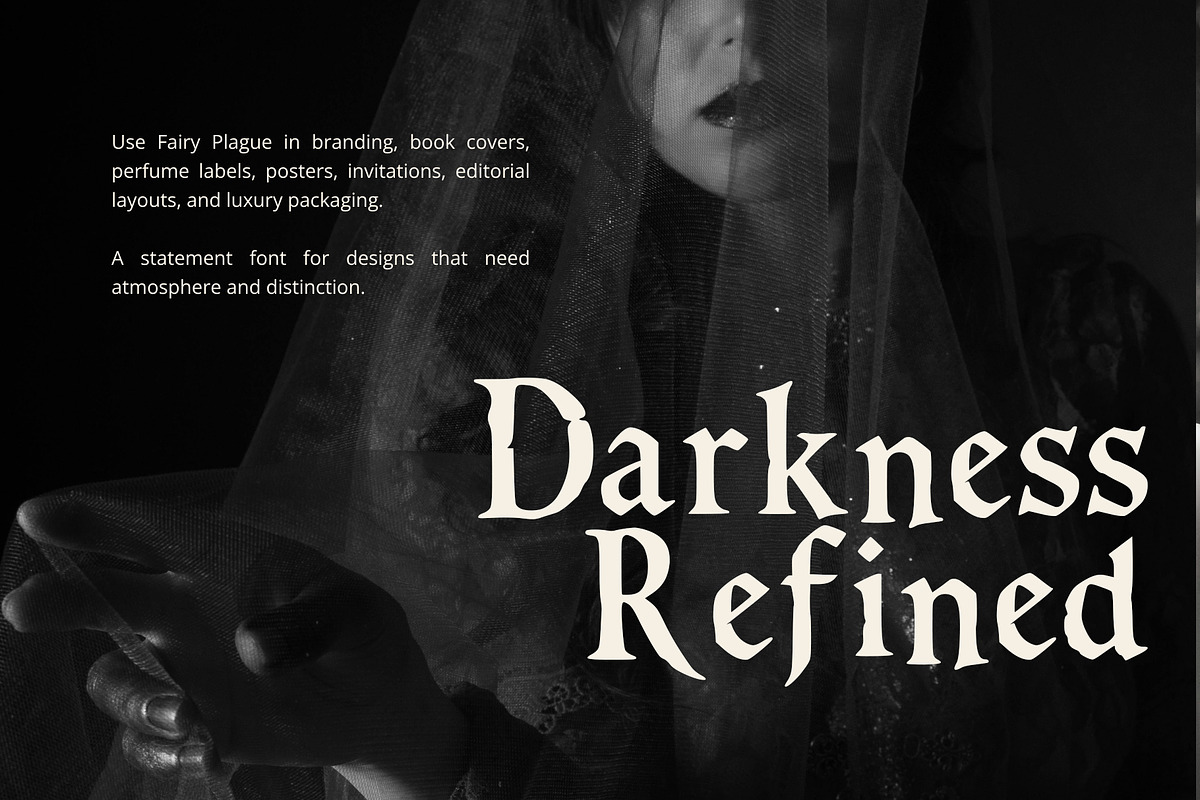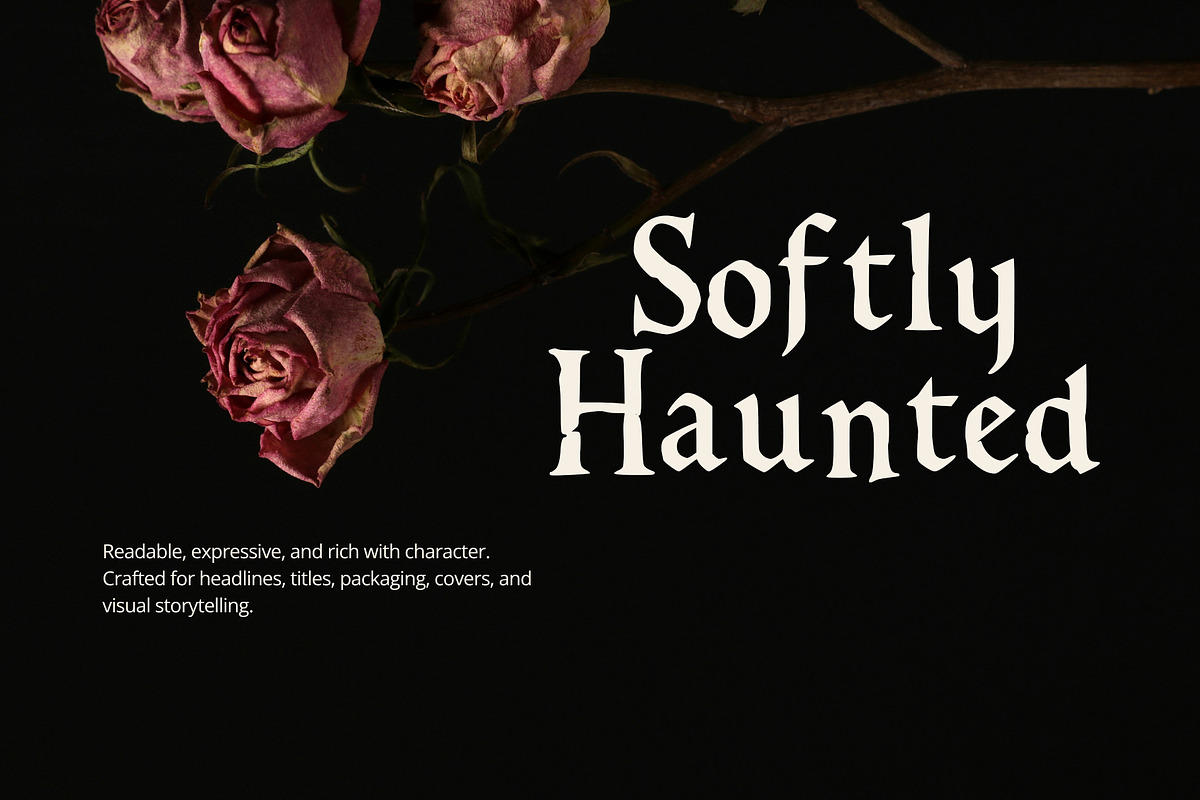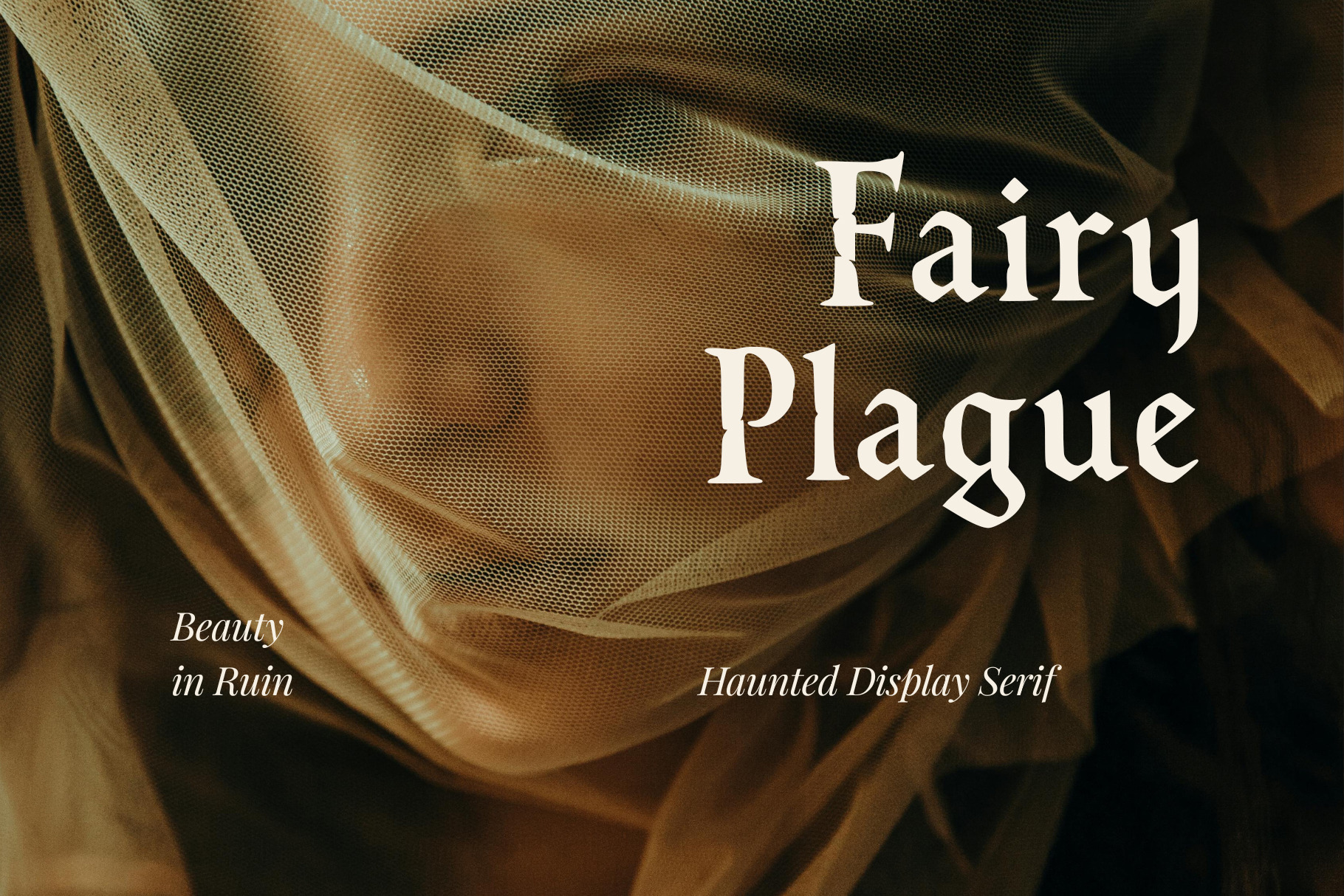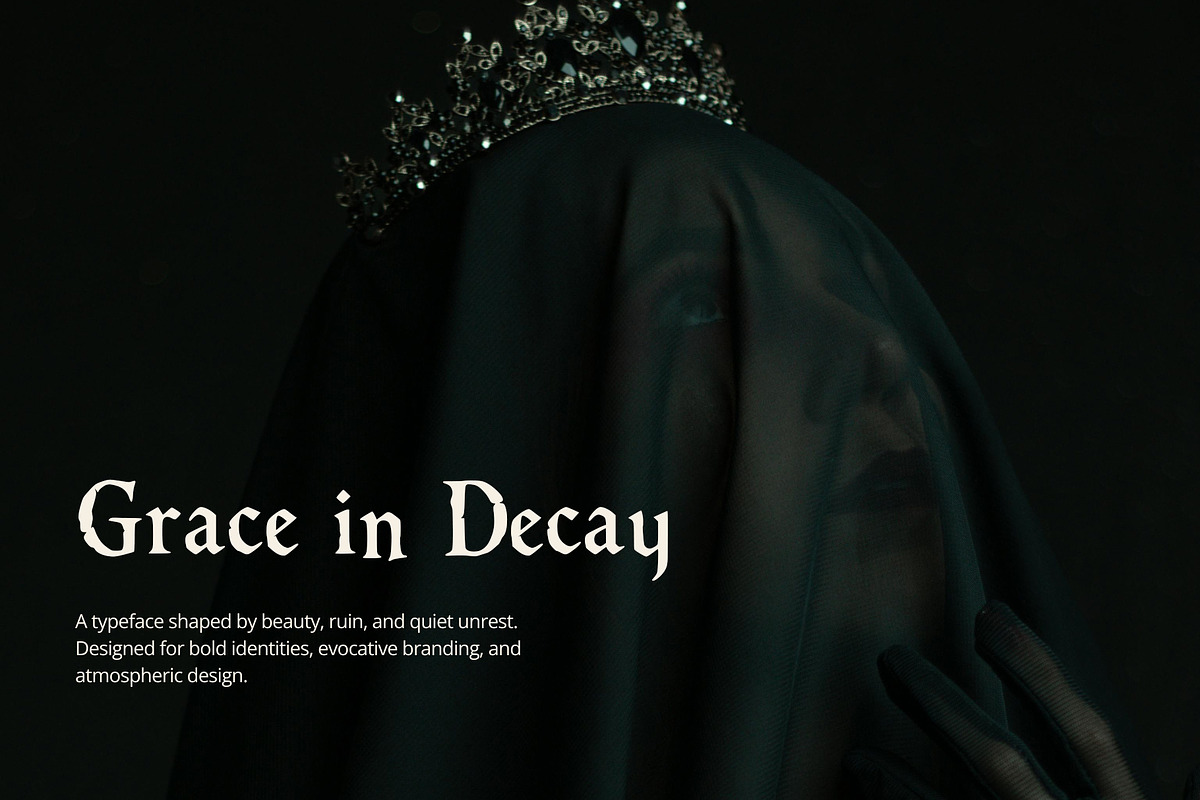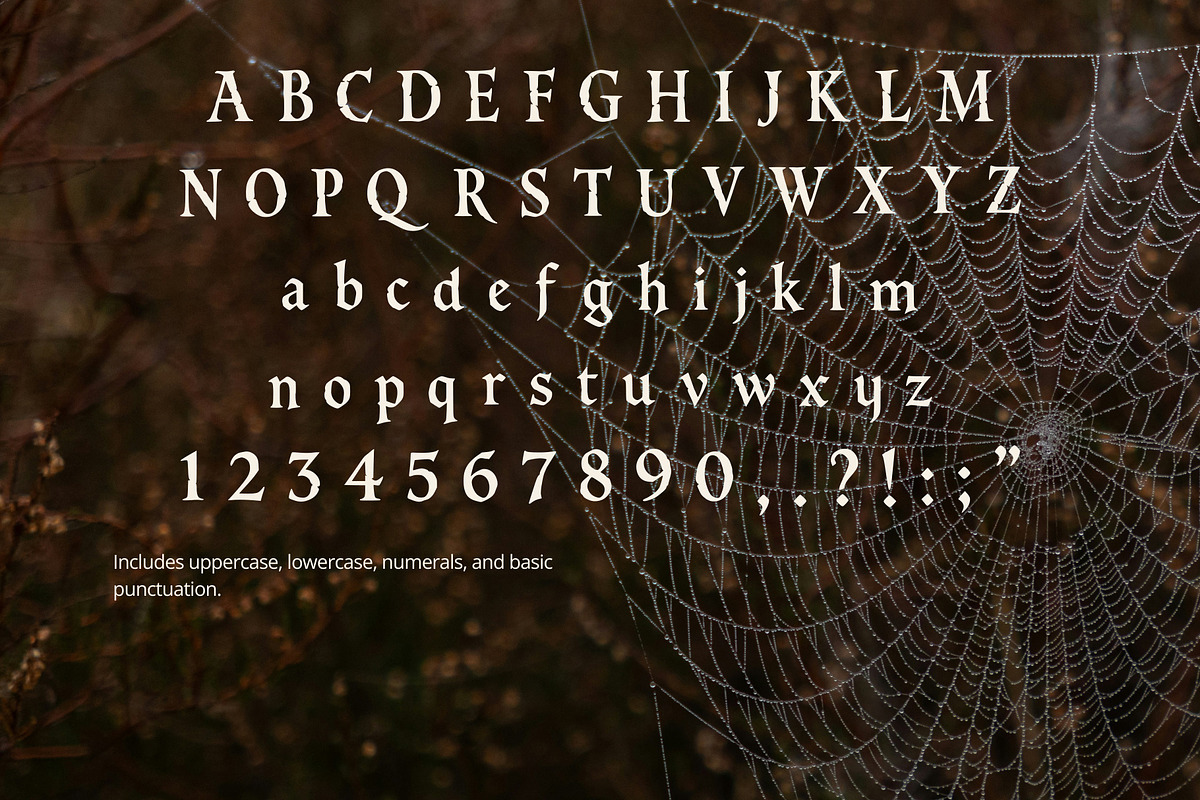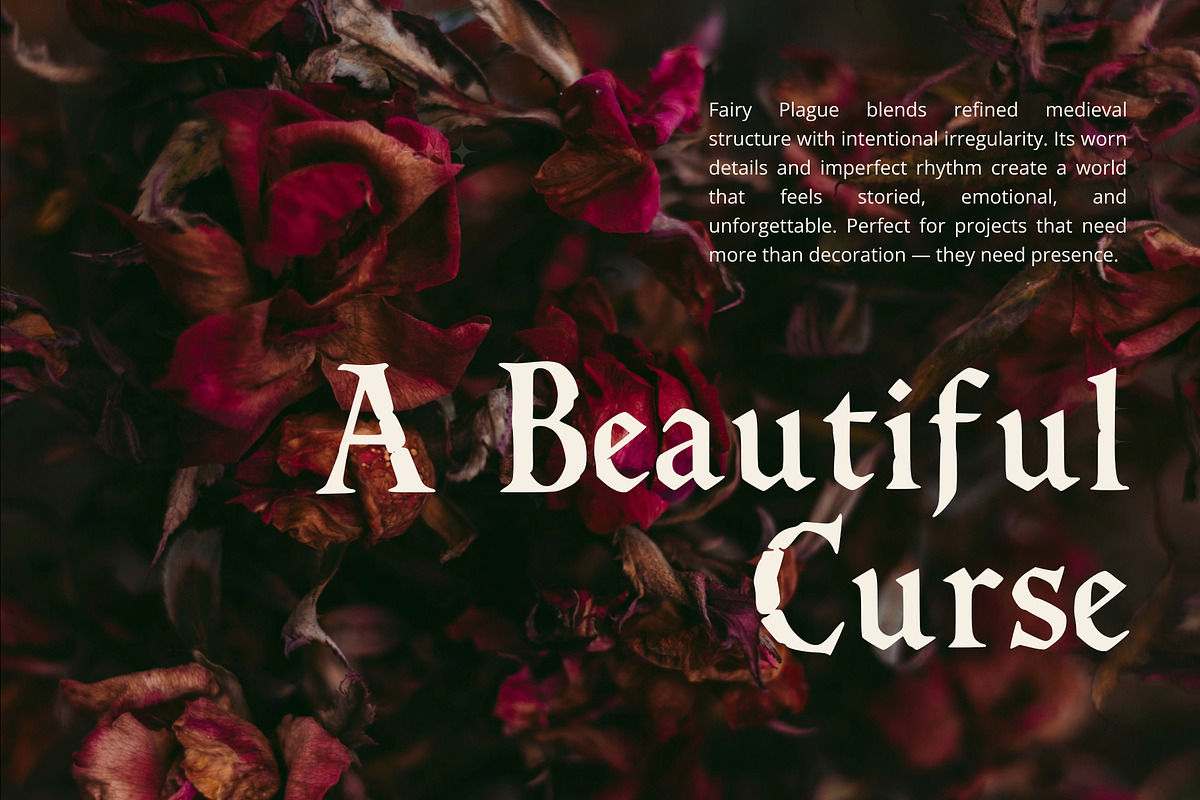
Dark Fairytale Display Serif Font
Fairy Plague – Dark Fairytale Serif Font
Fairy Plague is a distinctive display serif font created for designers who want atmosphere, emotion, and unforgettable visual presence.
Blending dark fairytale aesthetics, subtle gothic influence, and elegant serif structure, this typeface feels like a forgotten kingdom preserved in ink — beautiful, imperfect, and impossible to ignore.
A Serif Typeface with Story and Presence
Inspired by ruined palaces, faded crowns, enchanted forests, folklore, and romantic gothic storytelling, Fairy Plague transforms ordinary layouts into something cinematic and deeply expressive.
If your project needs more than just clean typography — if it needs mood, identity, and character — Fairy Plague was made for that.
- Uppercase letters (A–Z)
- Lowercase letters (a–z)
- Numbers (0–9)
- Basic punctuation
- This font includes one style only
- No bold version
- No italic version
- No alternate styles
- English-only character set
- No multilingual support
- branding and visual identity
- logo design
- packaging design
- book covers
- editorial layouts
- posters and headlines
- invitation design
- perfume and candle labels
- gothic fashion projects
- dark academia design
- fantasy themed content
- social media graphics
Design Characteristics:
- elegant serif letterforms
- decorative medieval details
- moderate contrast for readability
- intentionally uneven rhythm
- handcrafted character
- subtle distressed texture
- expressive uppercase forms
- atmospheric silhouette
- clean enough for practical use
- strong headline presence
Why Choose Fairy Plague
If you are looking for a dark fairytale serif font, a gothic display typeface, or a unique decorative font with real atmosphere, Fairy Plague offers something rare: style with emotion.
It combines the charm of old-world storytelling, the mystery of gothic design, and the impact of modern display typography.
Use it when you want your work to feel memorable, dramatic, and beautifully different.